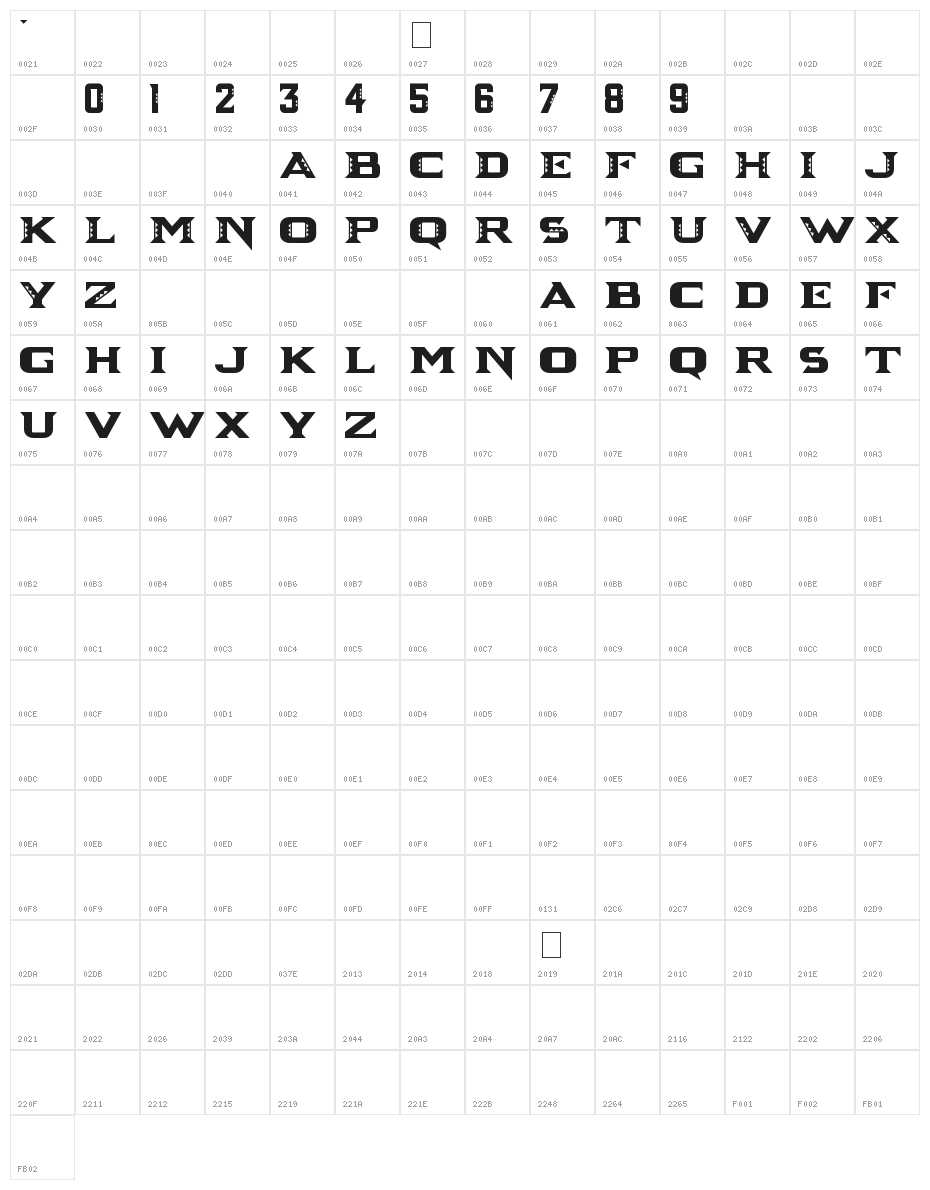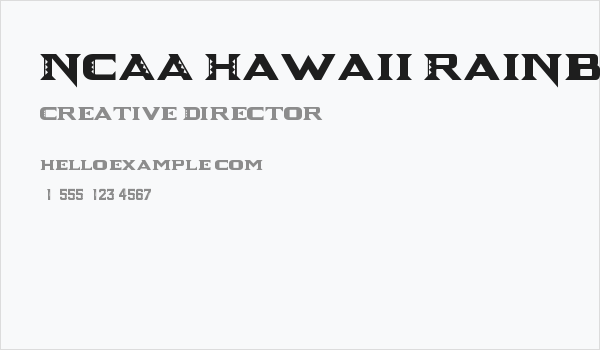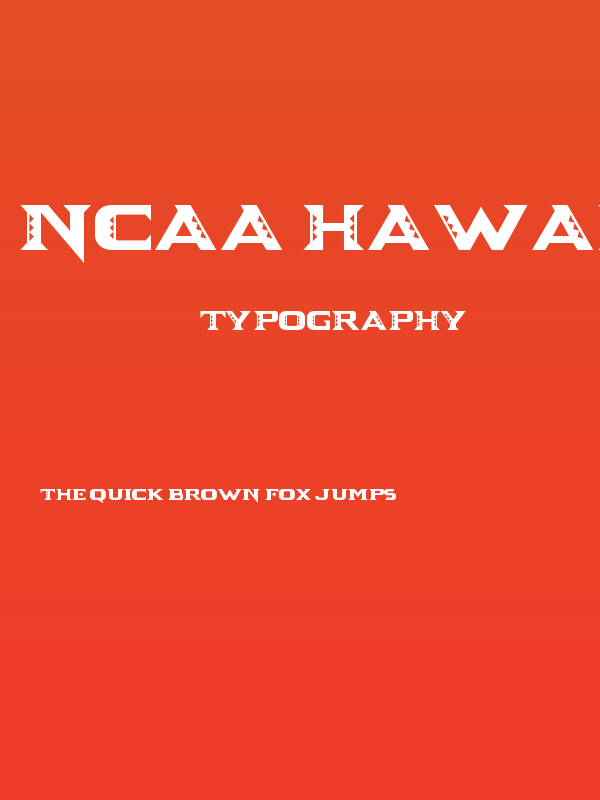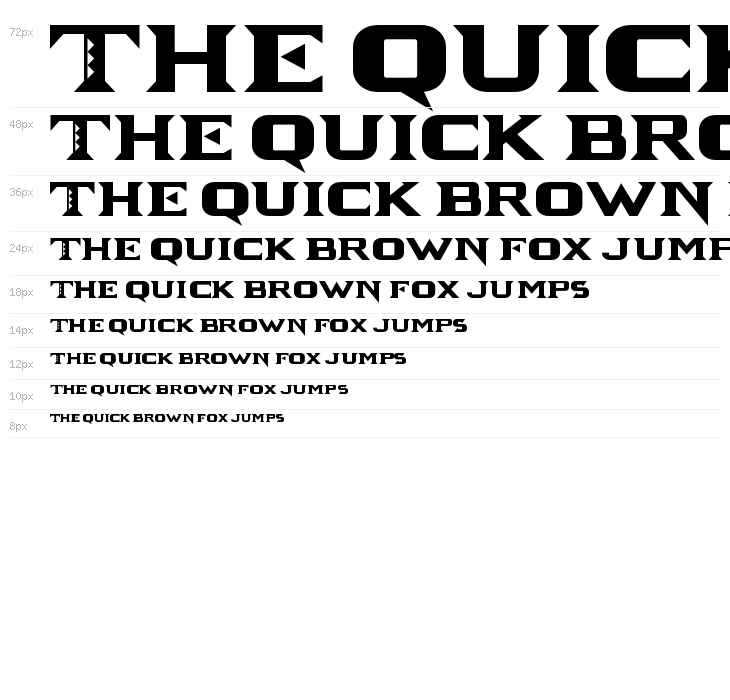
NCAA Hawaii Rainbow Warriors Font
NCAA Hawaii Rainbow Warriors Description
This font features a bold and striking design with a unique tribal pattern integrated into each character, evoking a sense of strength and cultural heritage. The uppercase letters are particularly prominent, with sharp angles and geometric shapes that create a dynamic and powerful appearance. The numbers follow a similar style, maintaining consistency throughout the font. The overall design is both decorative and functional, making it suitable for a variety of applications where a bold statement is desired.